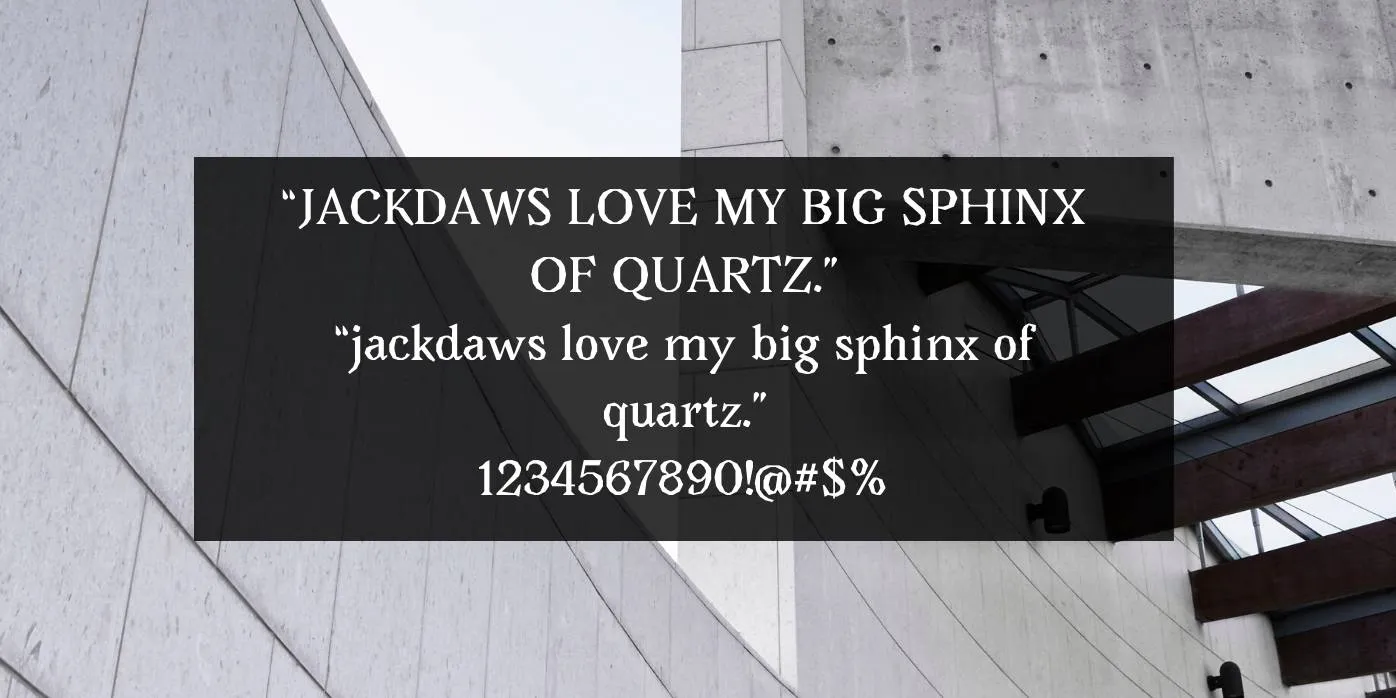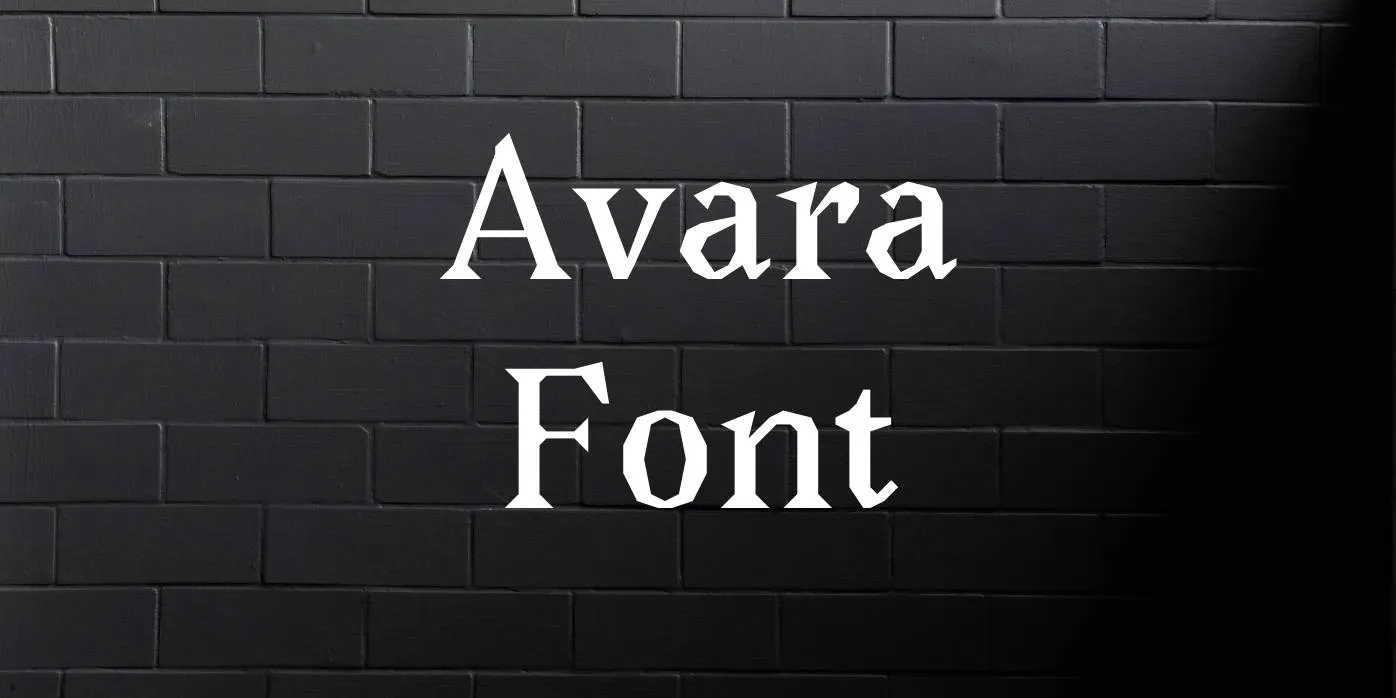
Avara Font
In this article, we introduce stunning font that is known as Avara Font. This typeface belongs to the serif family and it was developed by Raphael Bastide. This stylish font was designed to be used for both digital and print projects. The Avara Font has a classic look that makes it perfect for any formal or professional project.
The clean lines and sharp edges of the font give it a modern feel, while the slightly rounded corners add a touch of elegance. You can also use athelas font which is closest to this font family. This gorgeous font is available in two weights, regular and bold. It also includes a set of alternate characters, which can be accessed by using the OpenType feature in your word processor or design software.